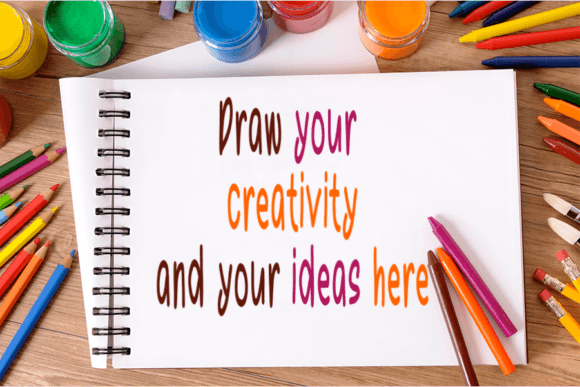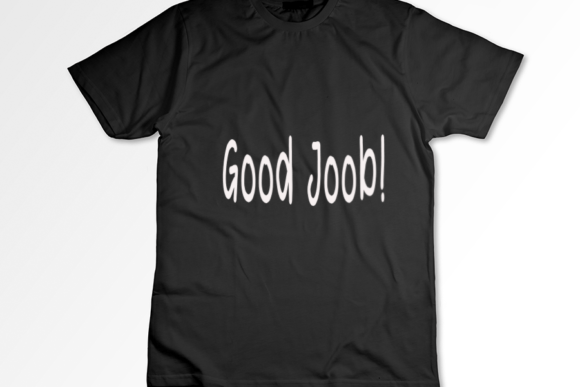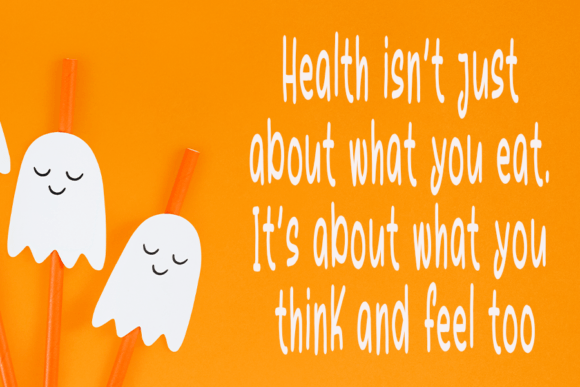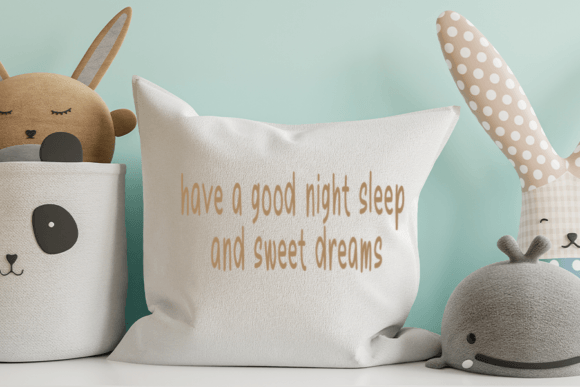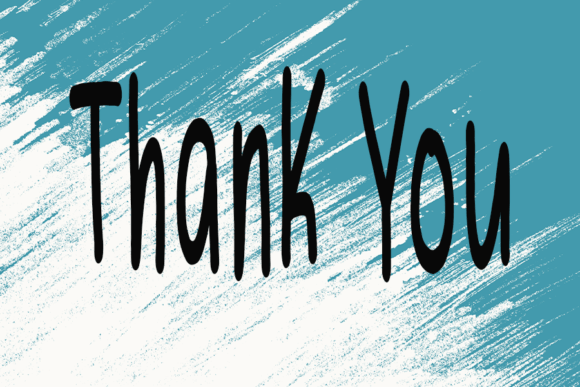
Discover the Perfect Touch of Whimsy with the Butter White Font
Have you ever found yourself doodling in a notebook, trying to capture the perfect script font for your next design project? I know I have! There’s something special about creating something with your own hand, but let’s be real, not everyone has the time or talent to create their own custom fonts. That’s where the Butter White Font comes in – a simple, quirky-looking handwritten font that’s perfect for adding a touch of elegance and whimsy to your designs.
Whether you’re a seasoned designer or just starting out, the Butter White Font is a valuable addition to your toolkit. Its classy, modern look makes it perfect for logos, branding, invitations, and more. With its versatility and ease of use, you can create stunning designs that are sure to impress. So why settle for a generic font when you can add a little bit of personality to your work with the Butter White Font?
Key Features of Butter White Font
- Unique Characteristics: A modern, elegant script font with a unique blend of cursive and sans-serif elements
Butter White Font Review
When I first laid eyes on the Butter White font, I was immediately drawn to its elegant and sophisticated vibe ✨. The clean lines, smooth curves, and subtle texture create a sense of refinement that’s hard to ignore. I love how it effortlessly exudes a sense of luxury, making it perfect for high-end branding and marketing materials.
One of the standout features of Butter White is its versatility ✨. It works beautifully for both digital and print applications, and its neutral tone ensures it won’t clash with most color schemes. Additionally, the font’s script and regular styles offer plenty of creative options for designers looking to add some flair to their designs.
- ⚠️ Limited character set: While the font has a wide range of characters, it falls short in terms of accents and special characters, which might be a concern for designers working with languages that require these characters.
- ⚠️ Not suitable for small text: Due to its elegance and refinement, Butter White can appear washed out when used for small text sizes. This may require designers to adjust the font size or style to maintain readability.
Overall, I’d give Butter White a solid 4 out of 5 stars. While it has some limitations, its strengths far outweigh its weaknesses. If you’re looking for a sophisticated and elegant font for your high-end branding or marketing materials, Butter White is definitely worth considering.
Common Use Cases for Butter White Font
The Butter White Font is ideal for use in invitations, greeting cards, and wedding stationery. Its elegant and modern design makes it perfect for creating sophisticated and stylish designs.
Is the Butter White Font suitable for print design?
While the Butter White Font is optimized for digital use, it can also be used for print design. However, it’s worth noting that the font’s design may not be as effective at larger sizes or in print applications where the font will be viewed at a distance.